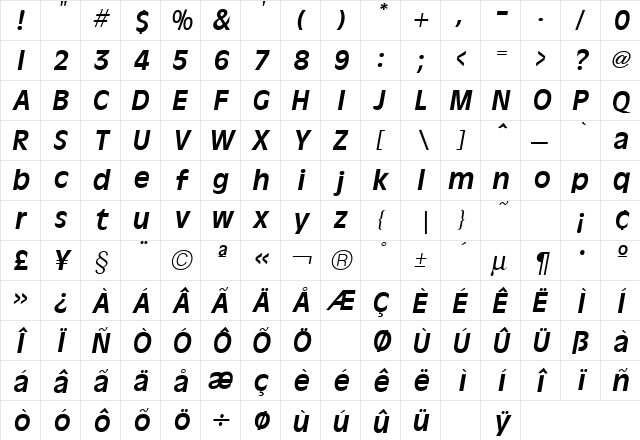
Olive Italic
Design Context for Olive Typeface
Olive offers clean, dependable letterforms without strong stylistic allegiance, making it a practical choice for designers who need flexibility. Its italic angle brings a sense of urgency and motion to the letterforms.
Pro Tip: Use Olive for emphasis, pull quotes, and subheadings where its slanted energy can add rhythm to the layout.